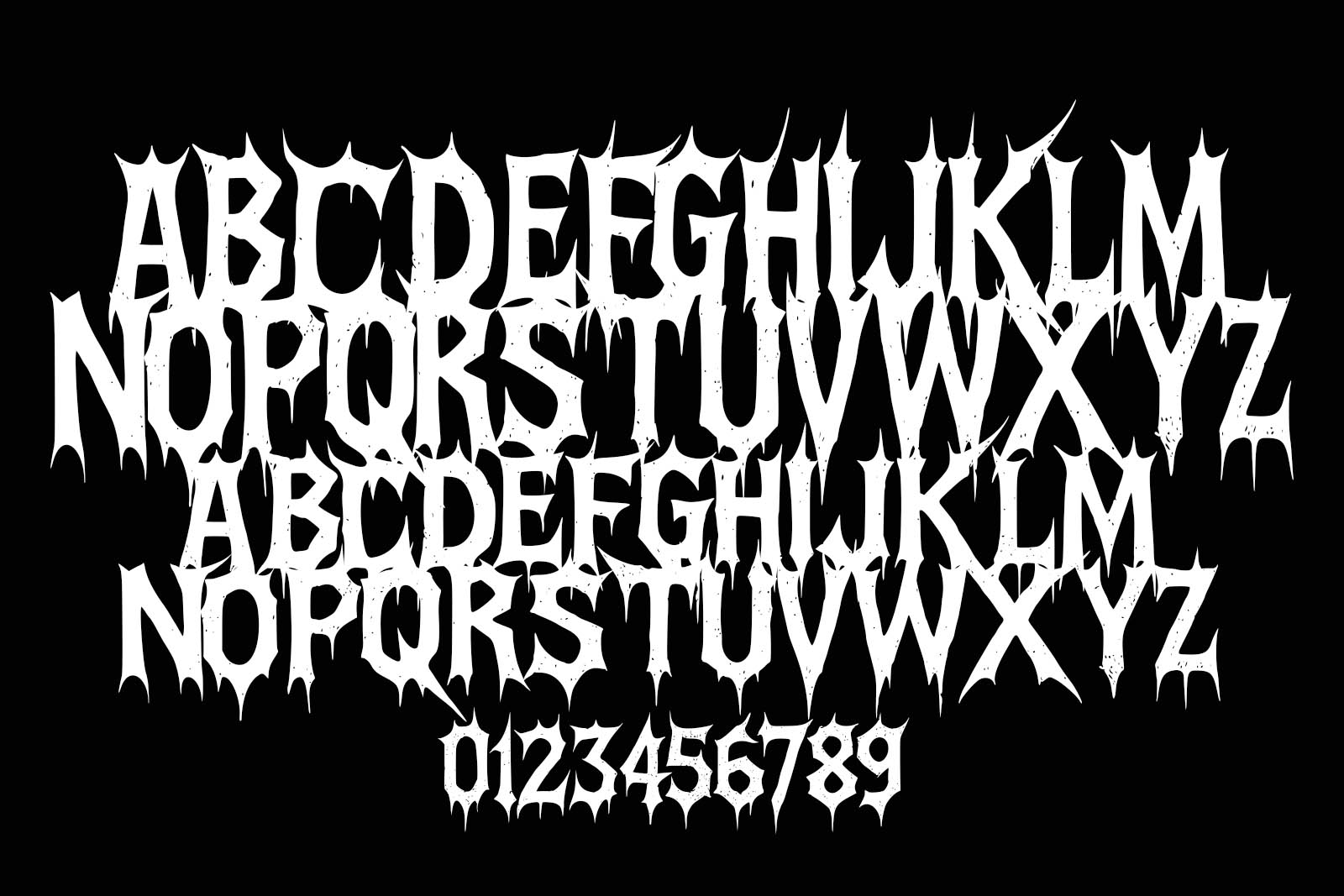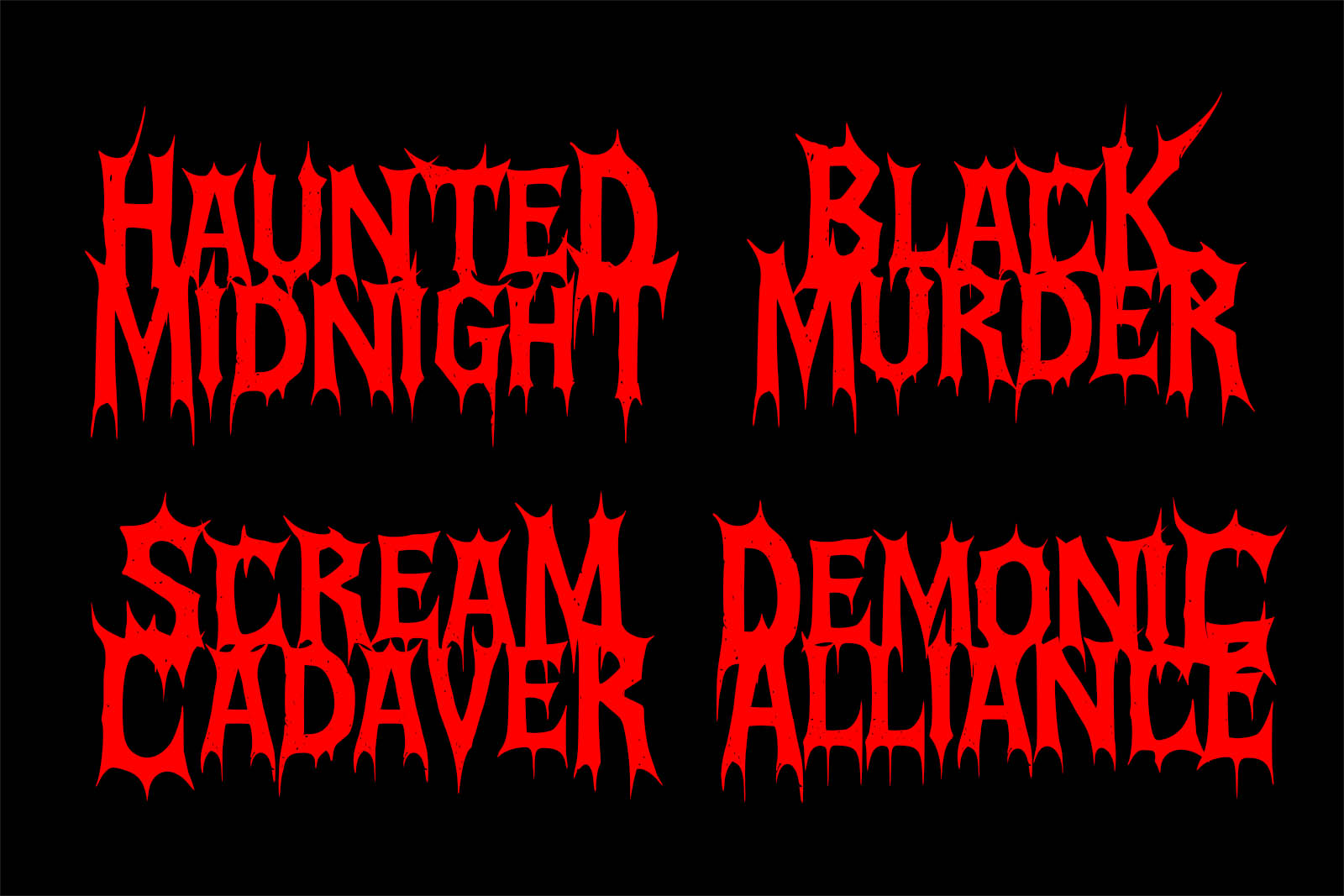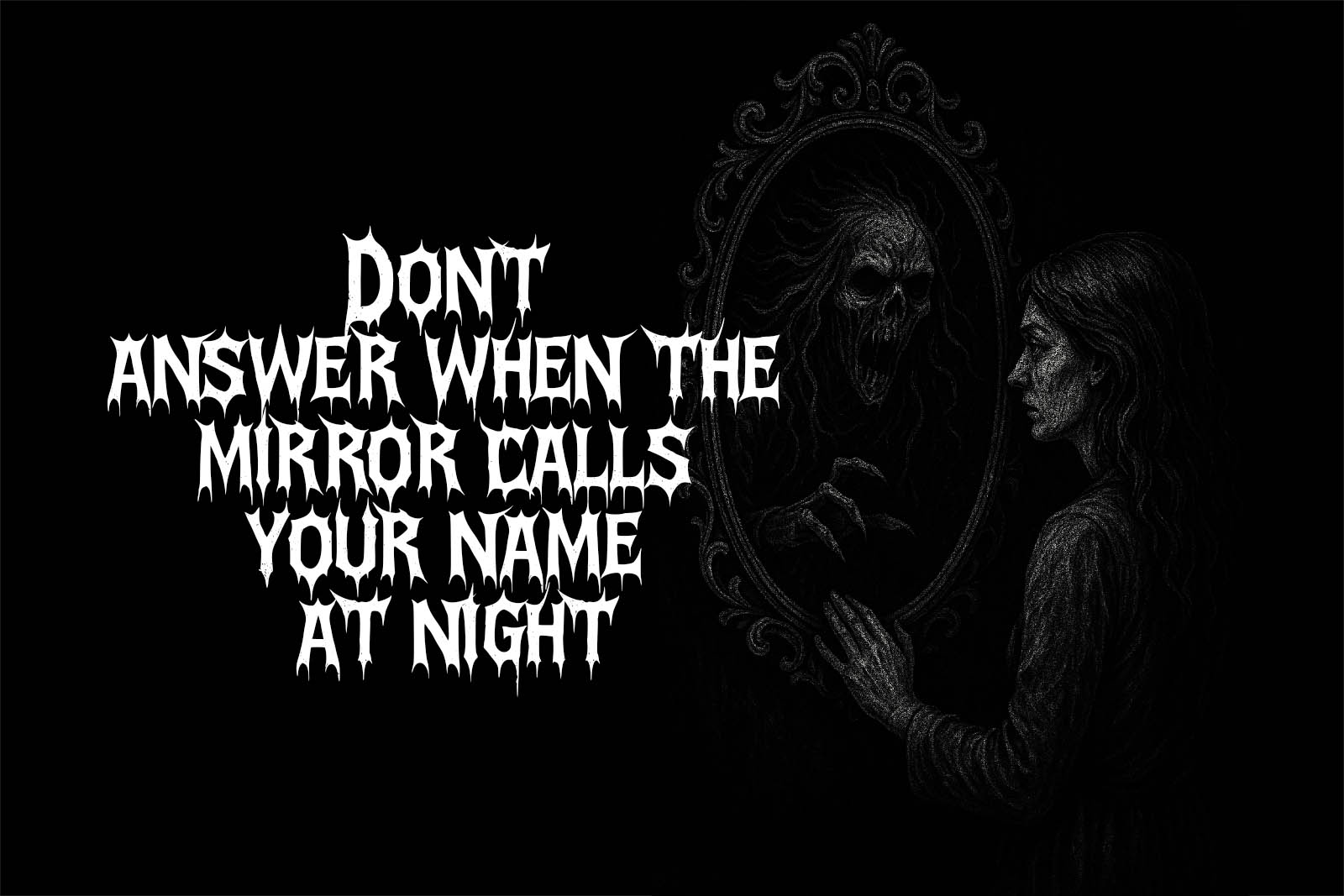
Silence Wound Blackmetal Font
Silence Wound is a razor-sharp black metal font that bleeds with pain, chaos, and rebellion. Crafted for the darkest creative minds, this typeface screams with jagged spikes, tortured shapes, and dripping edges that reflect the raw intensity of underground black metal. The bold red letters stab through the void like unhealed wounds—perfect for extreme band logos, album covers, dark merch, or festival branding.
Whether you're a designer, metalhead, or label seeking an authentic black metal aesthetic, Silence Wound delivers maximum visual impact. It channels the soul of second wave black metal, with a modern twist for today’s brutal scene.
Ideal for:
• Black metal and death metal band logos
• Extreme music album covers
• Dark-themed T-shirts and merchandise
• Occult and satanic visuals
• Horror movie titles and underground posters